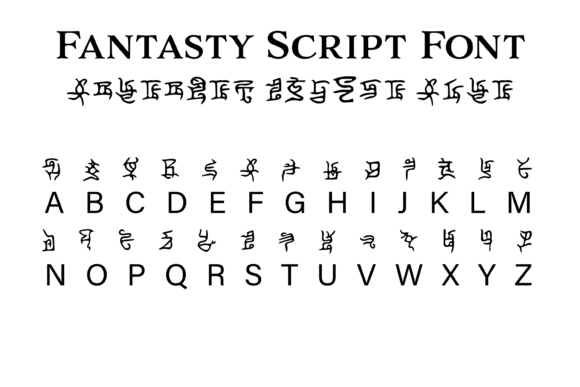
Immerse Your Audience in Fantasy with the Perfect Font
Do you ever find yourself huddled around the table, pouring over dusty tomes and conjuring magical spells for your next Dungeons and Dragons campaign? Or perhaps you’re crafting a novel set in a mystical realm, where mythical creatures roam free. Whatever your creative passion, you know the importance of setting the right tone – and that’s where the Fantasy Script 10 Font comes in.
This enchanting font is designed to transport your audience to a world of wonder and magic. With its elegant script and whimsical flair, it’s the perfect complement to your fantasy world-building. As a designer, you’ll appreciate the versatility of Fantasy Script 10 Font, which includes the standard English alphabet and basic punctuation, making it easy to incorporate into your projects.
Fantasy Script 10 Font Key Features
- Font Style: Fantasy, Script
- Unique Characteristics: Distinctive, elegant, and whimsical design elements, including flowing connections between letters and unique flourishes
Fantasy Script 10 Font Review
I recently had the chance to work with the Fantasy Script 10 font, and I must say it’s a real showstopper ✨. The first thing that caught my attention was its elegant and refined look. The font’s flowing lines and subtle flourishes add a touch of sophistication to any design, making it perfect for titles, headings, and other display text.
One of the things I love about Fantasy Script 10 is its versatility ✨. It’s suitable for a wide range of projects, from fantasy and science fiction to romance and historical fiction. The font’s soft, cursive feel makes it ideal for creating a warm and inviting atmosphere, while its clean lines keep it from feeling too cluttered or overwhelming.
- ⚠️ The font may be difficult to read at small font sizes, due to its intricate design.
- ⚠️ Fantasy Script 10 is not ideal for body text, as it can be tiring to read large blocks of text in this font.
- ⚠️ The font may not be suitable for digital displays, as it can be difficult to view on low-resolution screens.
Overall, I’m thoroughly impressed with Fantasy Script 10 ✨. While it may have some limitations, its unique charm and versatility make it a valuable addition to any designer’s toolkit. Whether you’re working on a fantasy novel, a romantic comedy, or a historical drama, Fantasy Script 10 is sure to add a touch of magic to your design.
Fantasy Script 10 Font is ideal for:
1. Creating fantasy-themed designs, such as posters, flyers, and book covers.
2. Adding a touch of magic to your presentations, reports, and other documents.
3. Creating custom illustrations, logos, and other graphics that require a touch of fantasy.